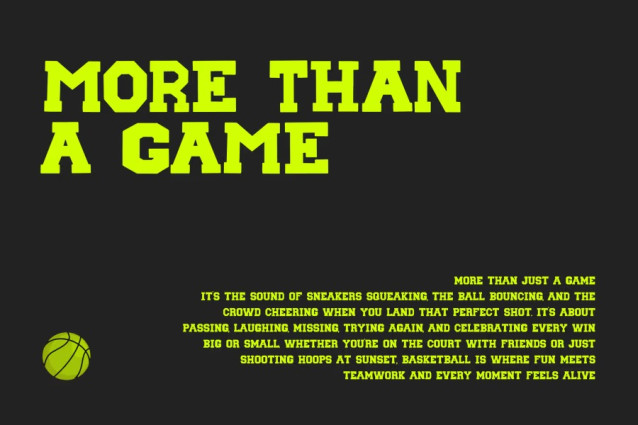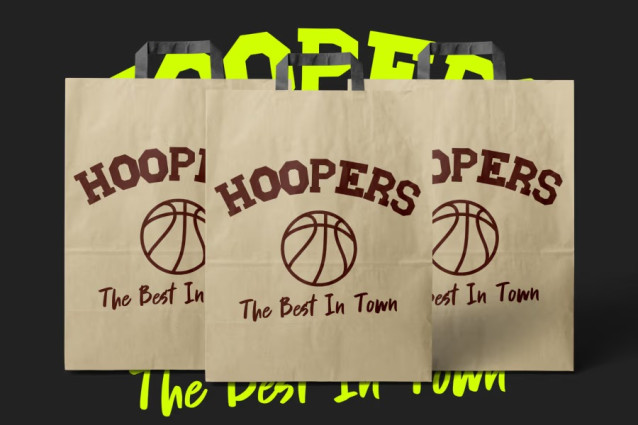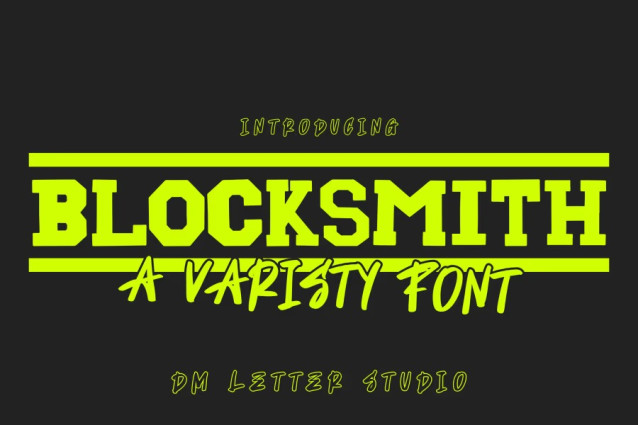
Blocksmith Font
Blocksmith Font is a strong, all-caps varsity font built for impact. With thick strokes, sharp corners, and athletic attitude, this typeface channels school spirit, sports design, and vintage Americana. Perfect for team jerseys, sports logos, college banners, varsity jackets, and retro-style branding, Blocksmith delivers that traditional block-letter look with clean execution and bold style.